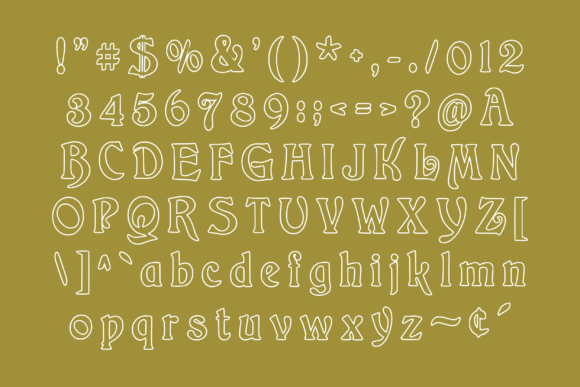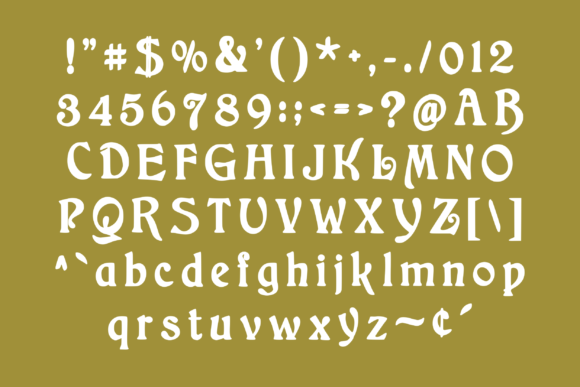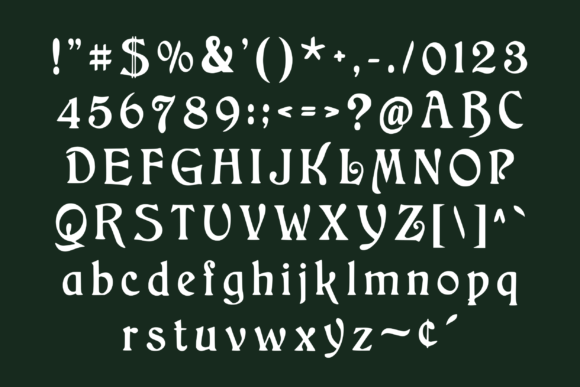
Introduction to Grizzly Font
Have you ever stared at a blank canvas, feeling the weight of a looming deadline and the pressure to create something truly special? As a designer, this moment is all too familiar. But what if the key to unlocking your creative potential lay not in flashy graphics or trendy typography, but in a simple, elegant font that speaks volumes without saying a word? Enter the Grizzly Font, a design resource that has been quietly making waves in the world of creative projects.
With its clean lines, classic proportions, and effortless readability, the Grizzly Font is the perfect choice for anyone looking to add a touch of class and sophistication to their next project. Whether you’re working on a formal invitation, an academic paper, or a high-quality brochure, this font is sure to deliver. And the best part? It’s available for free download, making it an accessible design resource for creatives of all levels.
So why is the Grizzly Font such a valuable asset for designers? For starters, its timeless appeal ensures that your project will remain relevant and stylish long after the trend of the moment has passed. Plus, its transparent background makes it easy to layer over other design elements, giving you the flexibility to get creative without sacrificing readability. With the Grizzly Font, you can trust that your project will be elevated to new heights of elegance and sophistication.
Key Features of Grizzly Font
- Unique, high-quality design resource ideal for creative projects
- Transparent background for seamless integration into any design
- Perfect for designers and artists seeking a distinctive, bold font
- Comes in multiple weights and styles for added versatility
Honest Review: Grizzly Font
As a designer, I’ve come across my fair share of fonts, but the Grizzly Font has caught my attention lately. I was excited to try it out for my latest creative project, and I must say it’s been a pleasant surprise.
Here are some things that work well with the Grizzly Font:
- ✨ High-quality design: The font is beautifully crafted, with smooth lines and a clear, readable style.
- ✨ Versatile: The Grizzly Font is suitable for a wide range of design projects, from logos to brochures and even digital displays.
However, there are a few limitations I’ve noticed:
- ⚠️ Limited customization options: While the font itself is well-designed, I wish there were more customization options available, such as adjustable font sizes and color schemes.
- ⚠️ Transparent background support: Unfortunately, the Grizzly Font doesn’t support transparent backgrounds, which can be a bit restrictive for designers who need to create designs with a see-through effect.
Overall, I’m impressed with the Grizzly Font’s potential. With a few tweaks to address the limitations, it could become an essential design resource for many creatives. As it stands, it’s still a great choice for designers looking for a high-quality, free font to add to their toolkit.
Getting the Most Out of Grizzly Font
To get the most out of the Grizzly Font, use it with a transparent background to create a high-quality design. This will allow you to easily combine the font with other design elements. Additionally, use the font in a variety of creative project types, such as logos, brochures, and social media graphics.
The Grizzly Font is commonly used in various design projects, including:
Logo design: The Grizzly Font is a great choice for logo design due to its unique and bold style.
Brochures and flyers: The font can be used to create eye-catching headings and titles in brochures and flyers.
Social media graphics: The Grizzly Font can be used to create engaging social media graphics, including posts and stories.
Can I use Grizzly Font on a transparent background?
Yes, the Grizzly Font is designed to be used on a transparent background, making it perfect for creating visually appealing designs. Simply ensure that your design software supports transparent backgrounds, and you’re good to go. The Grizzly Font’s high-quality design will shine through on any background, whether it’s transparent or not.